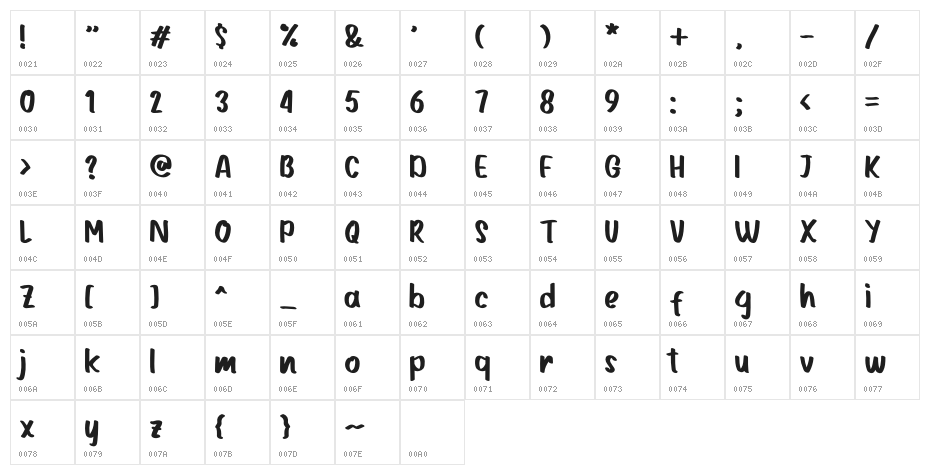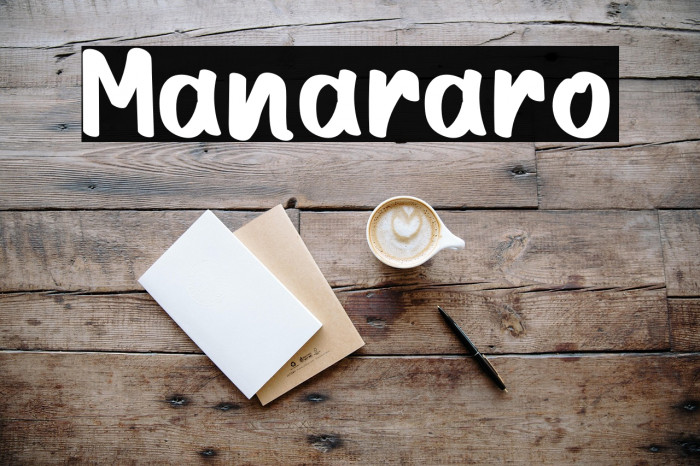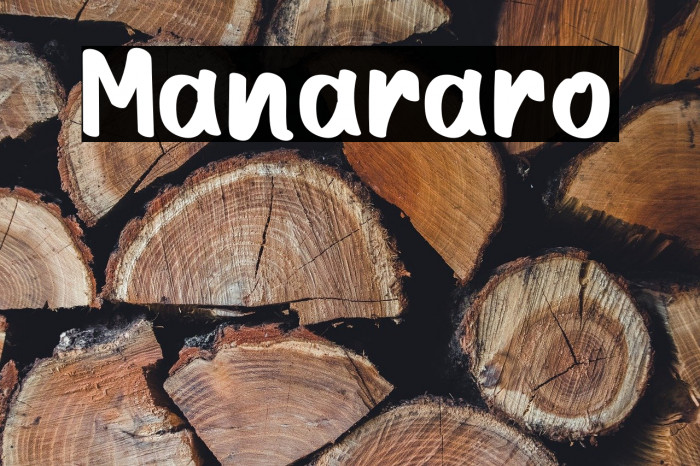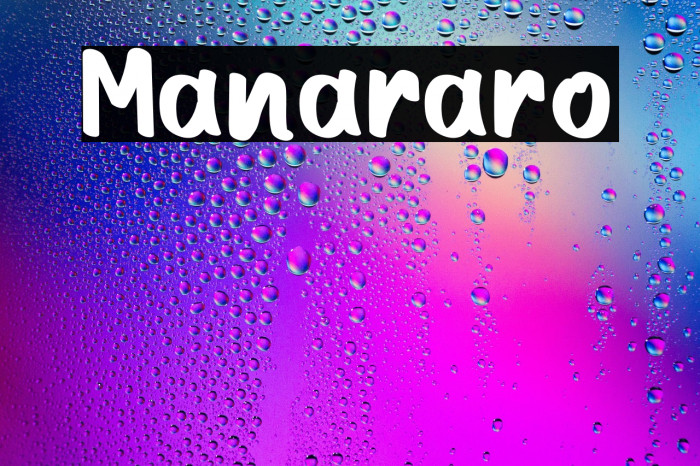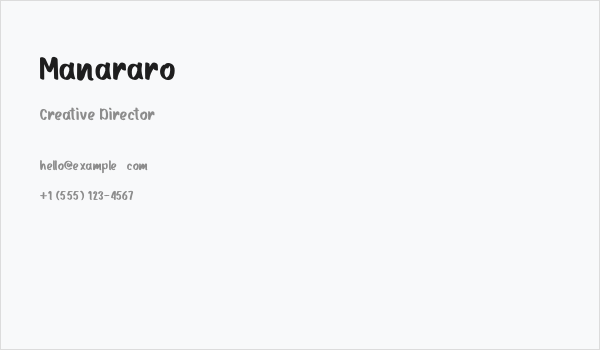
Manararo Font
Manararo Description
A playful, bold handwritten typeface with rounded terminals and irregular stroke widths, giving it a casual and friendly appearance. The characters are slightly condensed with a consistent baseline and moderate contrast.
| Width | Condensed |
| Overall Style | Playful, Casual, Decorative |
| Use Case | Headlines, Posters, Logos, Informal Branding |
| Proposed Projects | Children's books, posters, greeting cards, branding for informal products, social media graphics. |